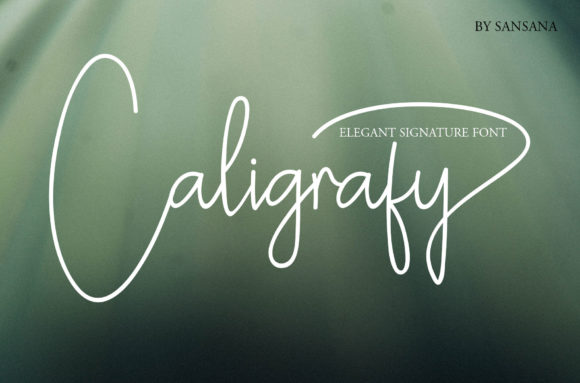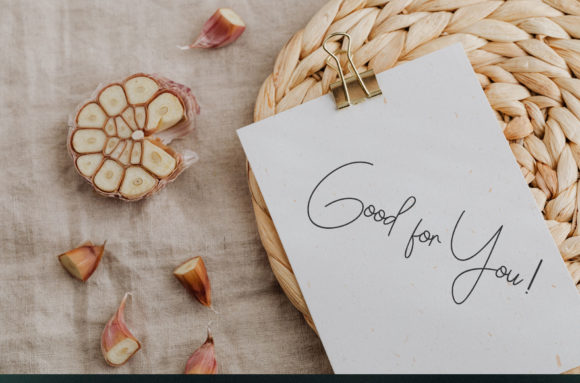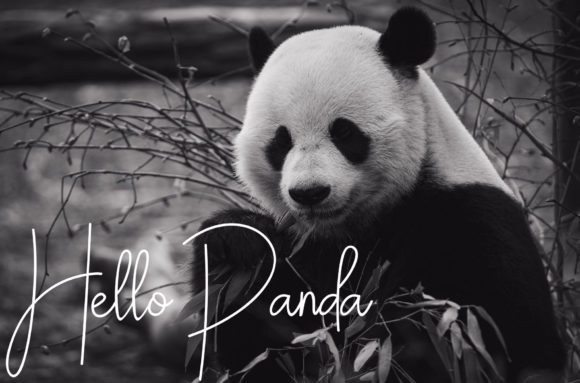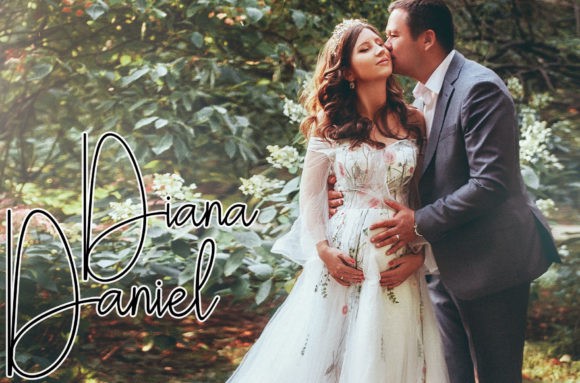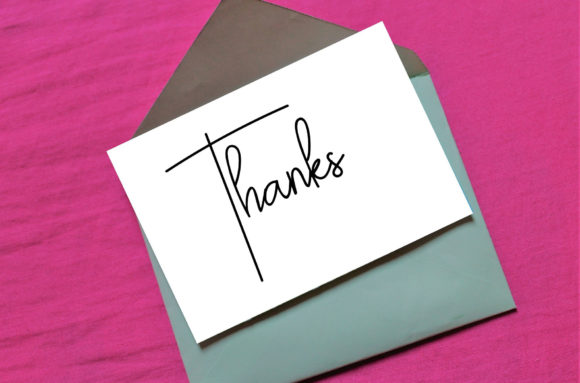
Calygrafy Font
About Calygrafy Font
“Calygrafy”: Adding Romance and Personalization with Slim Handwritten Font
Indulge in the charm of “Calygrafy,” a font that exudes delicacy and joy with its slim and delicate handwritten style. Perfect for infusing romance and personalization into your designs, “Calygrafy” is ideal for writing wedding invitations, cards, or any other project that requires a romantic and personalized touch.
The beauty of “Calygrafy” lies in its dainty and joyful aesthetic. Its slim lines and delicate strokes add a sense of elegance and whimsy to every design it graces, capturing the essence of romance with each letter. Whether you’re crafting a heartfelt wedding invitation or a heartfelt card for a loved one, this font brings a touch of magic to your words.
But “Calygrafy” is more than just visually appealing—it’s also highly versatile. Its handwritten style lends itself perfectly to a variety of applications, allowing you to express your creativity in countless ways. From formal occasions to everyday communication, this font adds a personalized touch that resonates with your audience.
Whether you’re a professional designer or an amateur enthusiast, “Calygrafy” is the perfect companion for bringing your vision to life. Its slim and delicate handwritten style adds warmth and personality to your message, making it truly memorable to your audience.
So why settle for ordinary typography when you can infuse your designs with the romantic charm of “Calygrafy”? Unlock its potential today and let its slim handwritten font transform your creations into heartfelt expressions of love and joy.